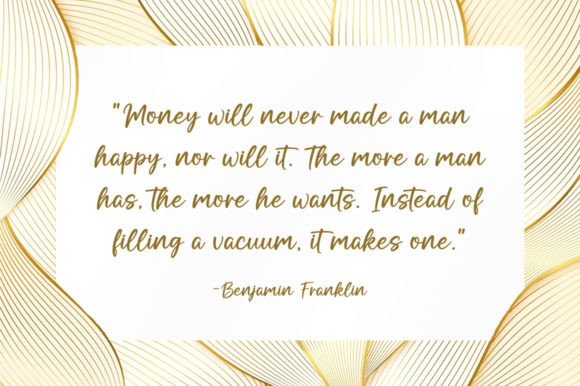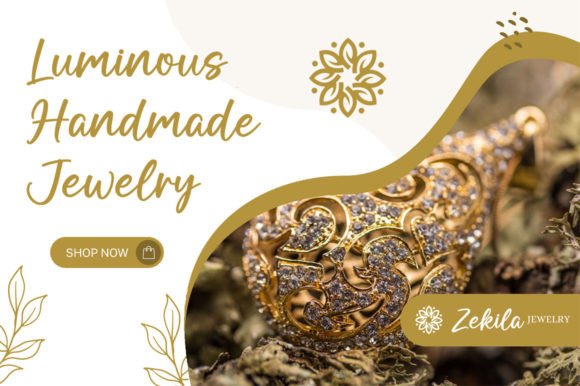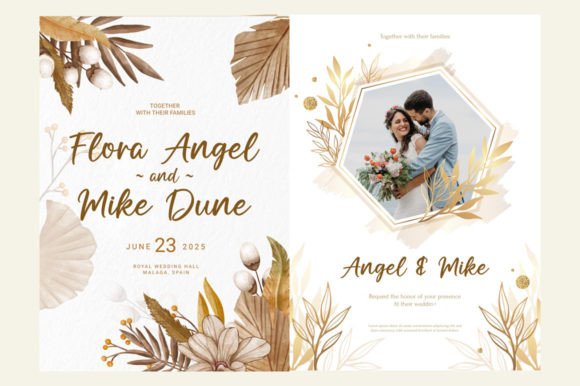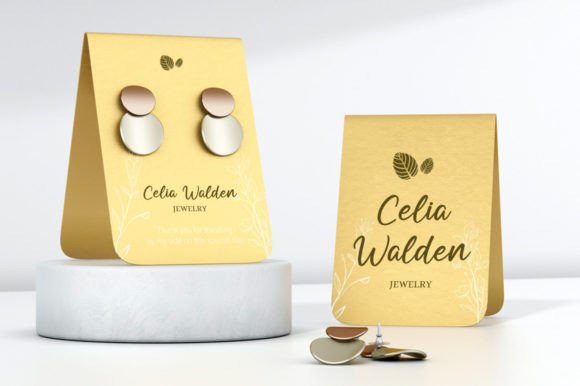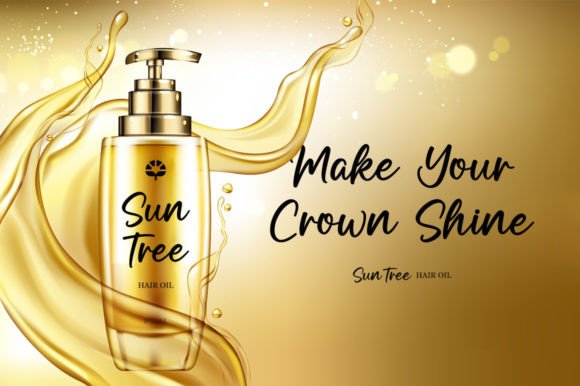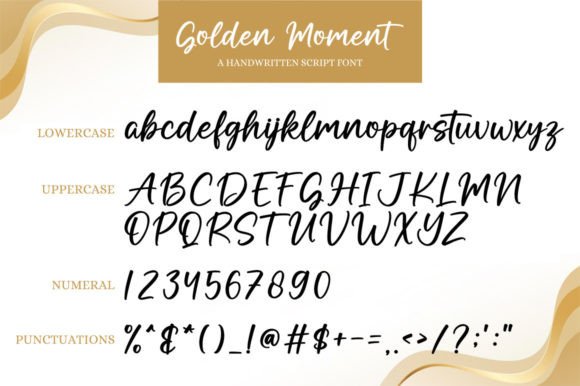
Introduction to Golden Moment Font
Golden Moment is a delicate, elegant, and flowing handwritten font.
It has beautiful and well-balanced characters and as a result, it matches a wide pool of designs .
Key Features of Golden Moment Font
Why Choose Golden Moment Font?
Golden Moment Font offers exceptional quality and versatility, making it a valuable addition to your design toolkit. Whether you’re creating for personal projects or commercial use, Golden Moment Font delivers professional results.